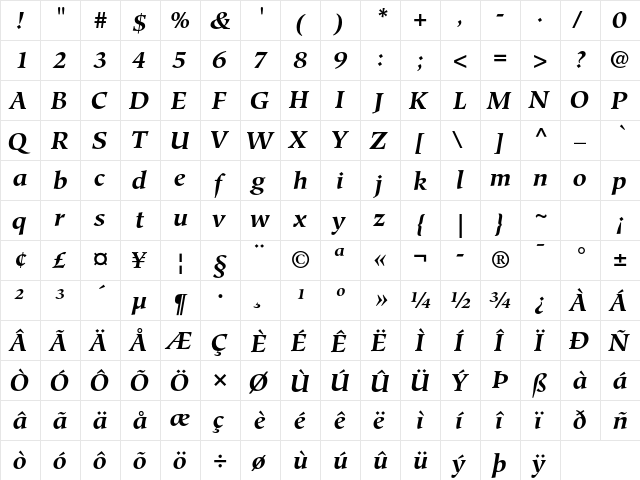
Hiroshige Std Bold Italic Font Preview
| Designer | Cynthia Hollandsworth |
Design Context for Hiroshige Std Typeface
Hiroshige Std takes a measured approach to typography — its balanced proportions and neutral character make it a reliable workhorse for both digital and print work. The dynamic lean of this cut emphasises speed and emphasis in any layout. The heavy weight commands attention and anchors typographic hierarchies.
Pro Tip: Try Hiroshige Std for annotation and caption copy alongside an upright companion — the contrast in angle creates a dynamic but ordered typographic system.